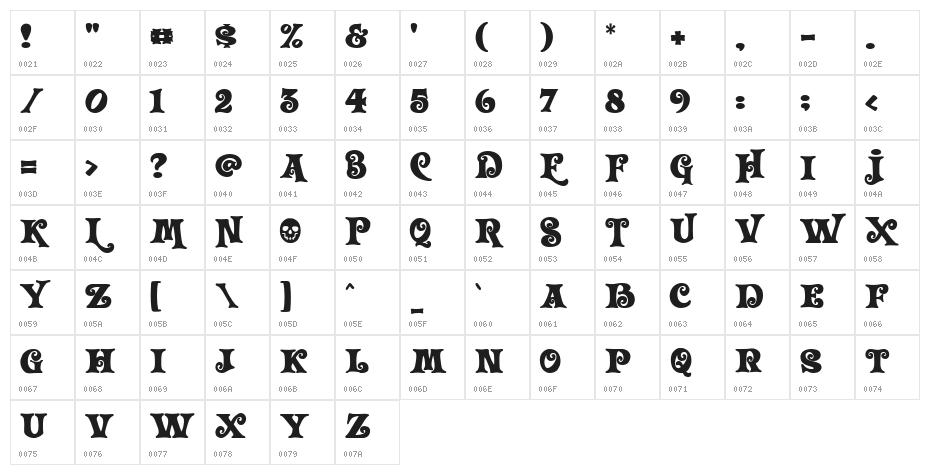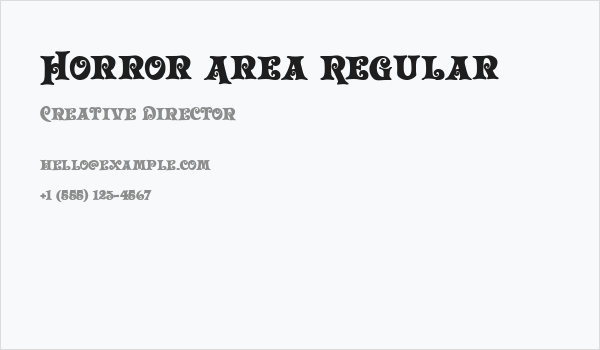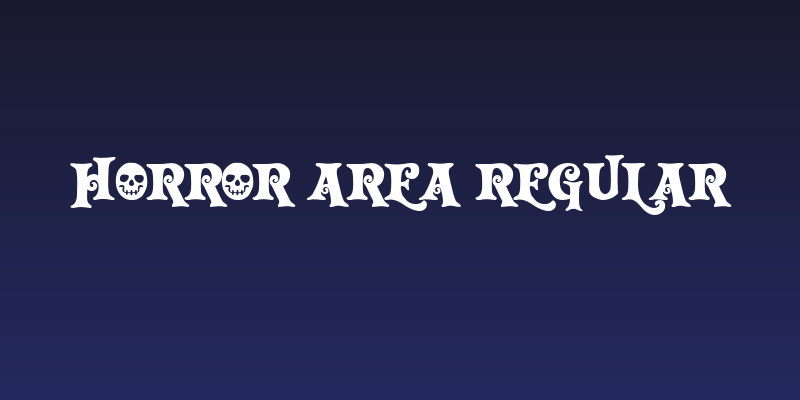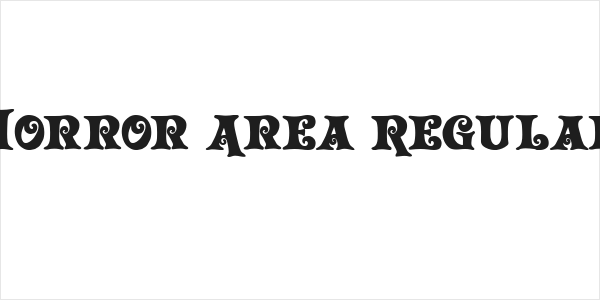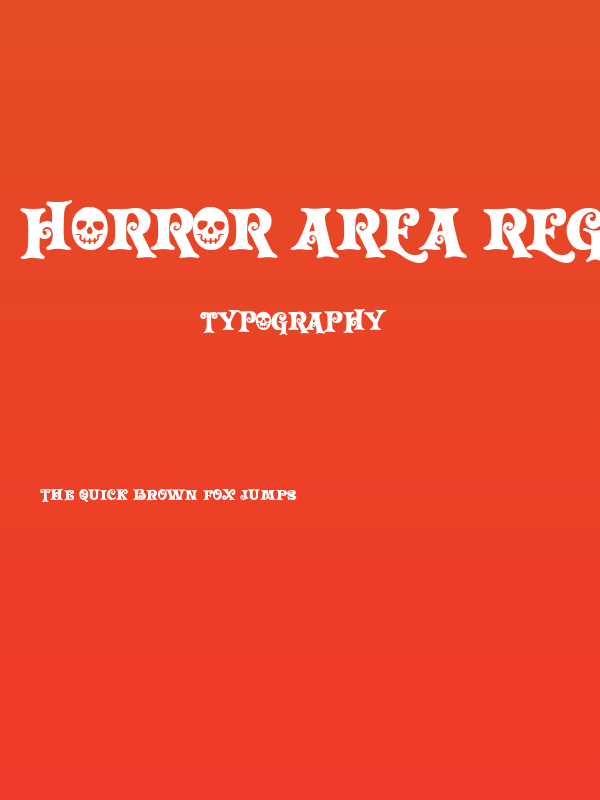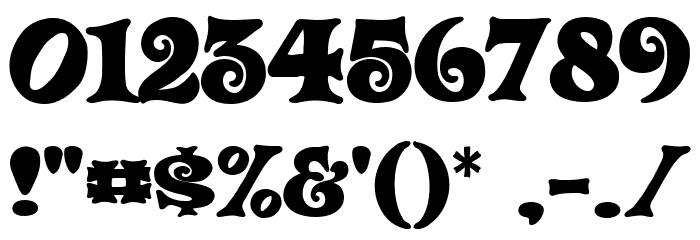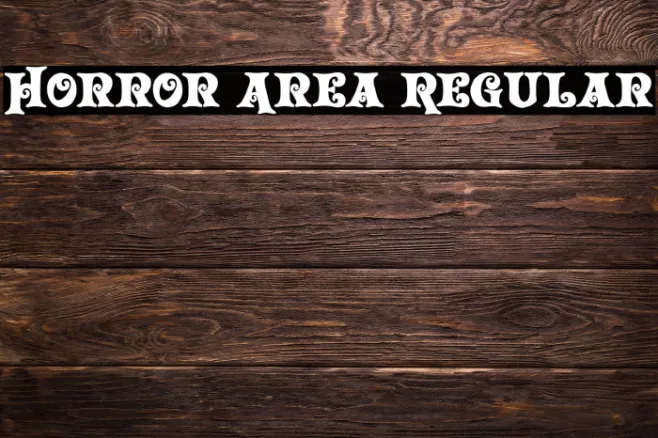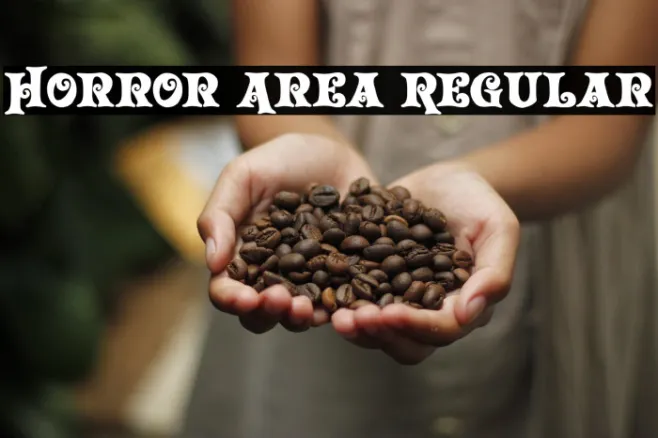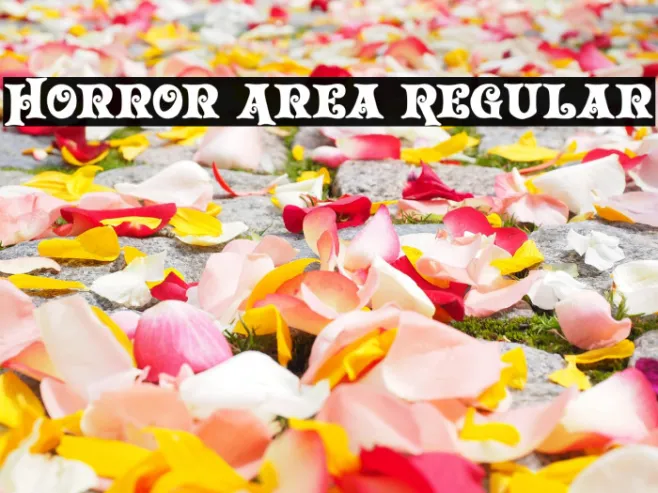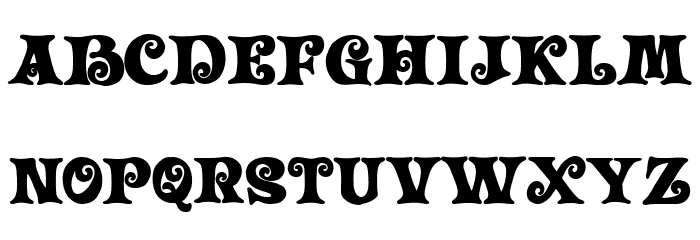
Horror Area Regular Font
Horror Area Regular Description
This font features a bold and dramatic style with a spooky, horror-themed aesthetic. The characters are embellished with unique, decorative elements that evoke a sense of mystery and intrigue. The uppercase letters are particularly striking, with exaggerated serifs and swirling details that add to the eerie vibe. The lowercase letters maintain the same thematic style, ensuring consistency across text. Numbers and special characters are equally stylized, making this font ideal for creating a cohesive design. The overall appearance is both playful and haunting, perfect for Halloween-themed projects or any design requiring a touch of the macabre.
| Proposed Projects | Ideal for Halloween invitations, horror movie posters, themed event flyers, and spooky merchandise designs. |